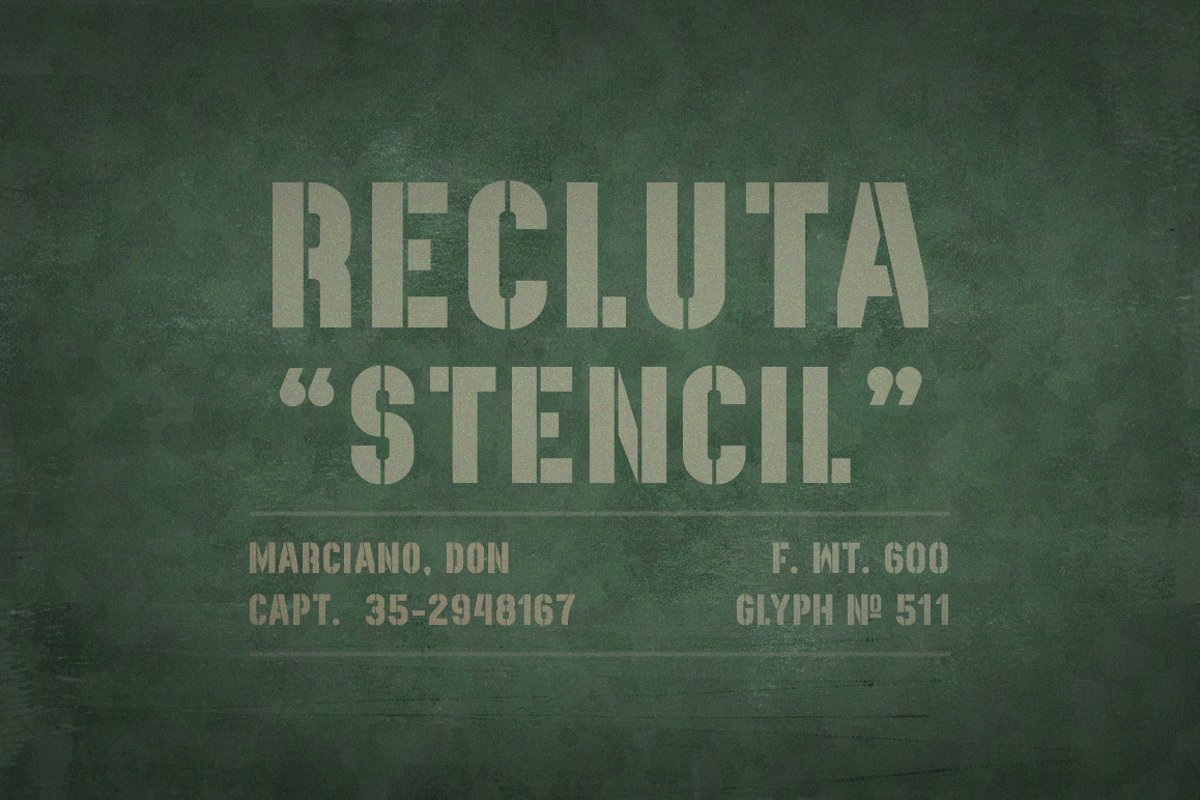
Recluta Stencil
Recluta-Stencil
Recluta is a military bold stencil inspired font, created for a series of veterans-related posters, with the most complete glyph count to date, including Latin and Cyrillic characters. If you are looking for that “boots on the ground” style design. An OTF file format with a total count of 511 glyphs, All caps only. I’ll appreciate your support if possible. Enjoy!